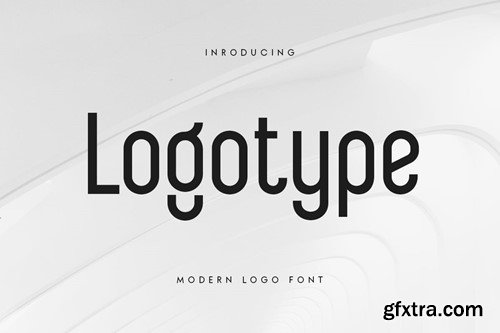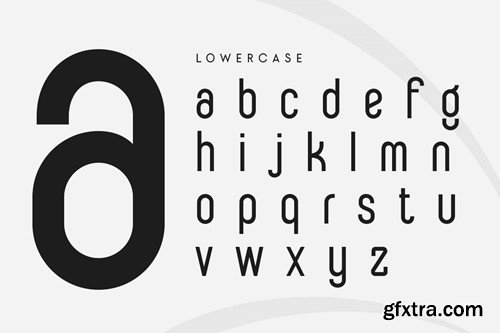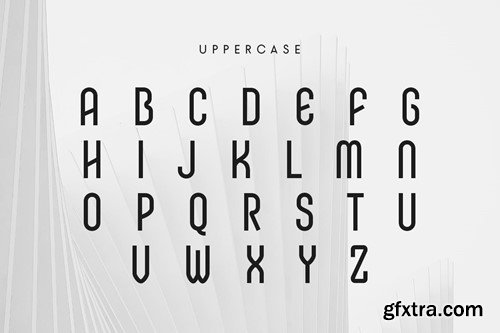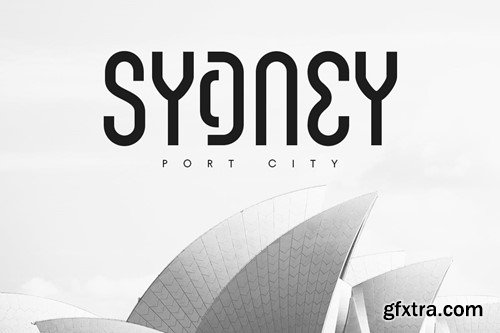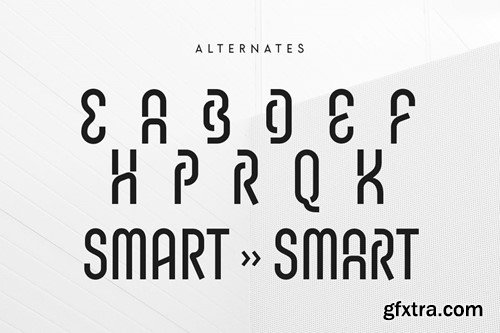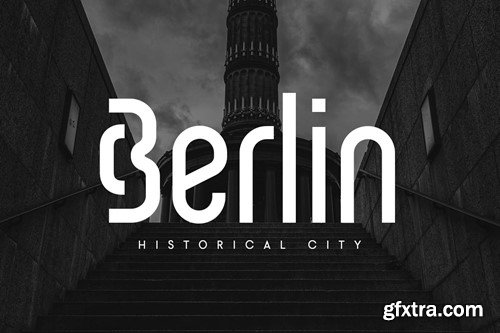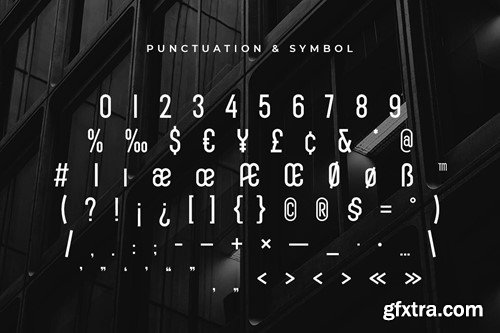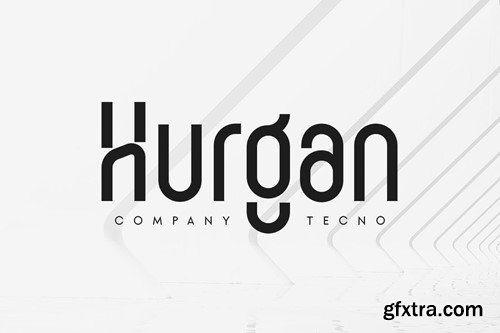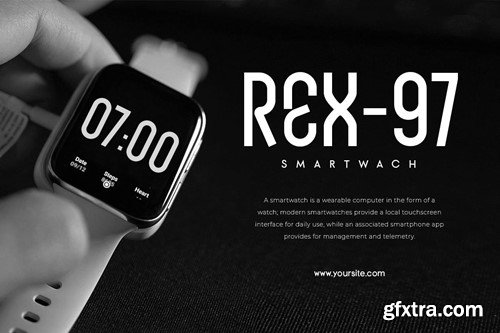
Logotype - Modern Logo Font 4EEJAD7
Logotype - Modern Logo Font
An Unique Modern Logo Font that we created special for Professional and Modern branding needs that will give you more Unique look, with alternates in unique shape will be ready to add value of your brand. It so nice to leverage designer or product owner that need solutions to make their design look more Professional and modern. And specially for this font, We prepared any alternate characters to help you create unlimited variations for your creative needs.
Logotype Modern Logo font ready with:
• Any options to get creative variations (combination of Alternates)
• Preview as a inspirations that you can do with this font
• Ready with Lowercase and Uppercase characters